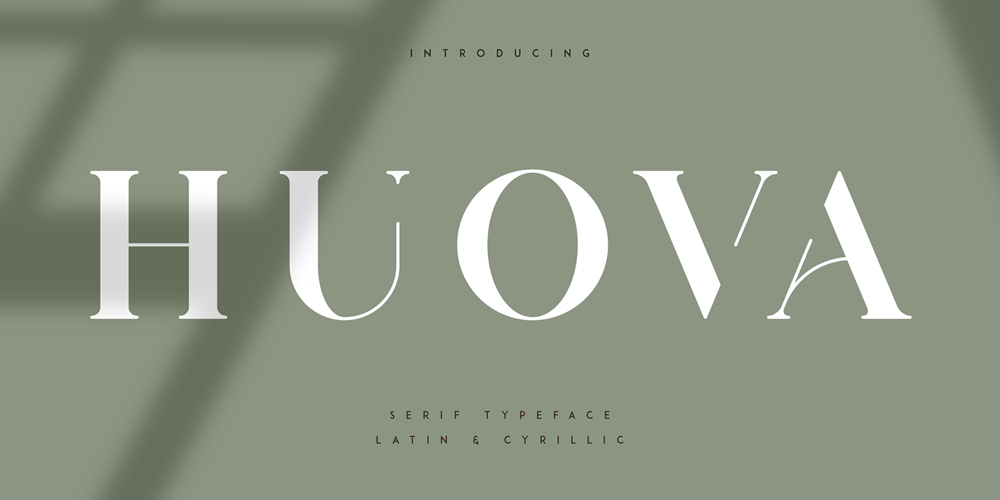
Huova
Huova font
Huova Font Family was designed by Vladimir Fedotov, Plamen Petrov and published by VP Creative Shop. Huova contains 4 styles and family package options. Huova is classic, sophisticated typeface with 4 fonts to enchant your next project. Very versatile fonts that works great in large and small sizes. Basic latin, advanced latin, basic Cyrillic and advanced Cyrillic character sets are supported!Huova is perfect for branding projects, home-ware designs, product packaging, magazine headers – or simply as a stylish text overlay to any background image. Uppercase numeral, punctuation & Symbol Light, Regular, Bold, Black Multilingual support Basic and Advanced Cyrillic support Feel free to contact me if you have any questions!Mock ups and backgrounds used are not included.Thank you! Enjoy!